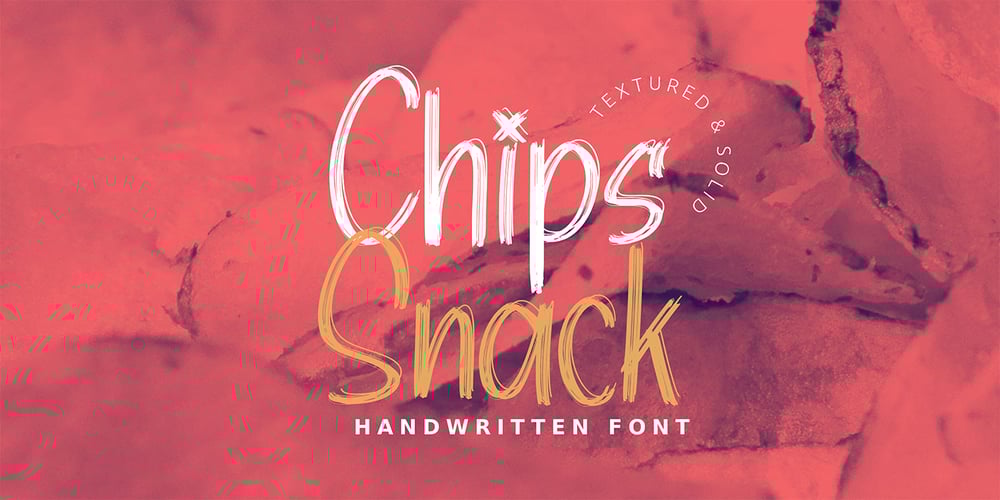
Chips Snack
Chips Snack font
Chips Snack Font Family was designed by Ibnu Utomo and published by Omotu. Chips Snack contains 2 styles and family package options. Chips Snack! A hand-written font with 2 styles, regular (brush texture) and solid. Chips Snack is perfect for short typography, logotype, apparel, T-shirt, Hoodie, product packaging, quotes, flyer, poster.Whats Include? 1. Uppercase and lowercase characters 2. Supports international languages 3. Numerals, punctuations4. Accessible in the Adobe Illustrator Glyphs panel, or under Stylistic Alternates in the Adobe Photoshop OpenType menu, Adobe InDesign, Corel Draw, even work on Microsoft Word5. Multilingual supportPlease message me if you’re unsure of any language support.Thanks for looking, and I hope you enjoy it! Please don’t hesitate to drop me a message if you have any issues or queries.